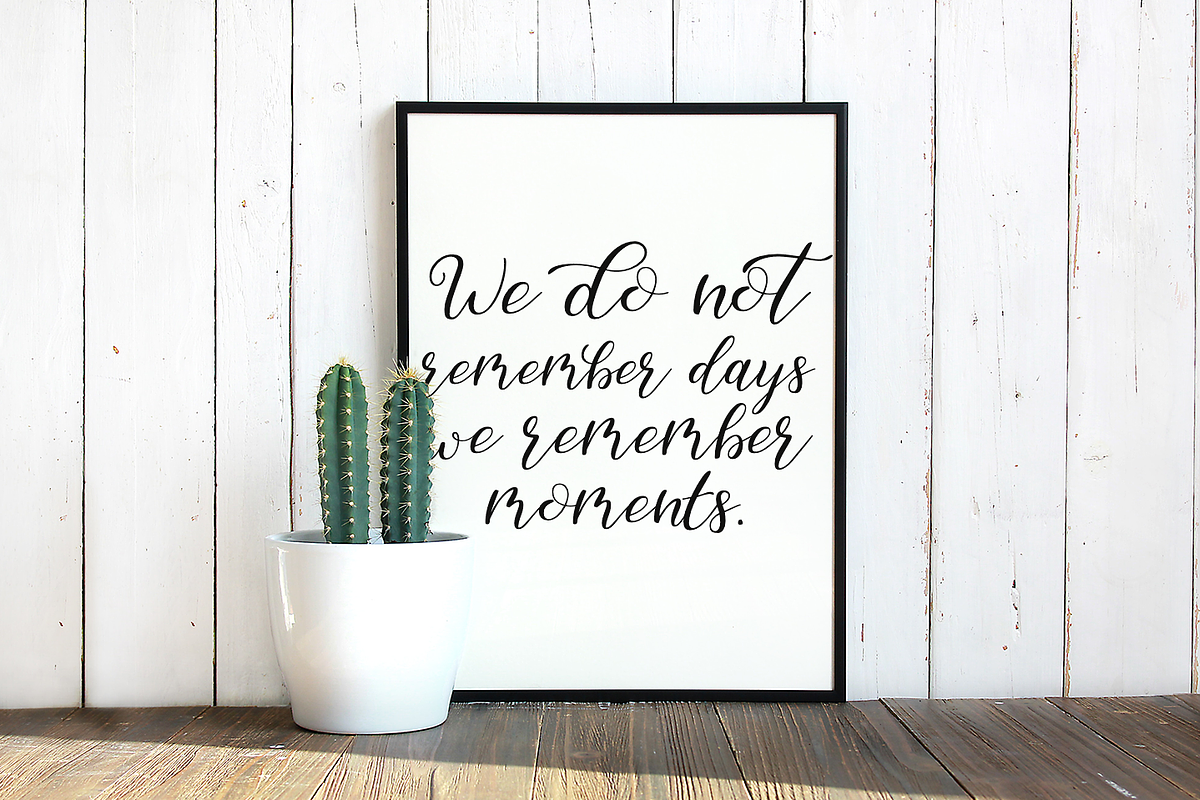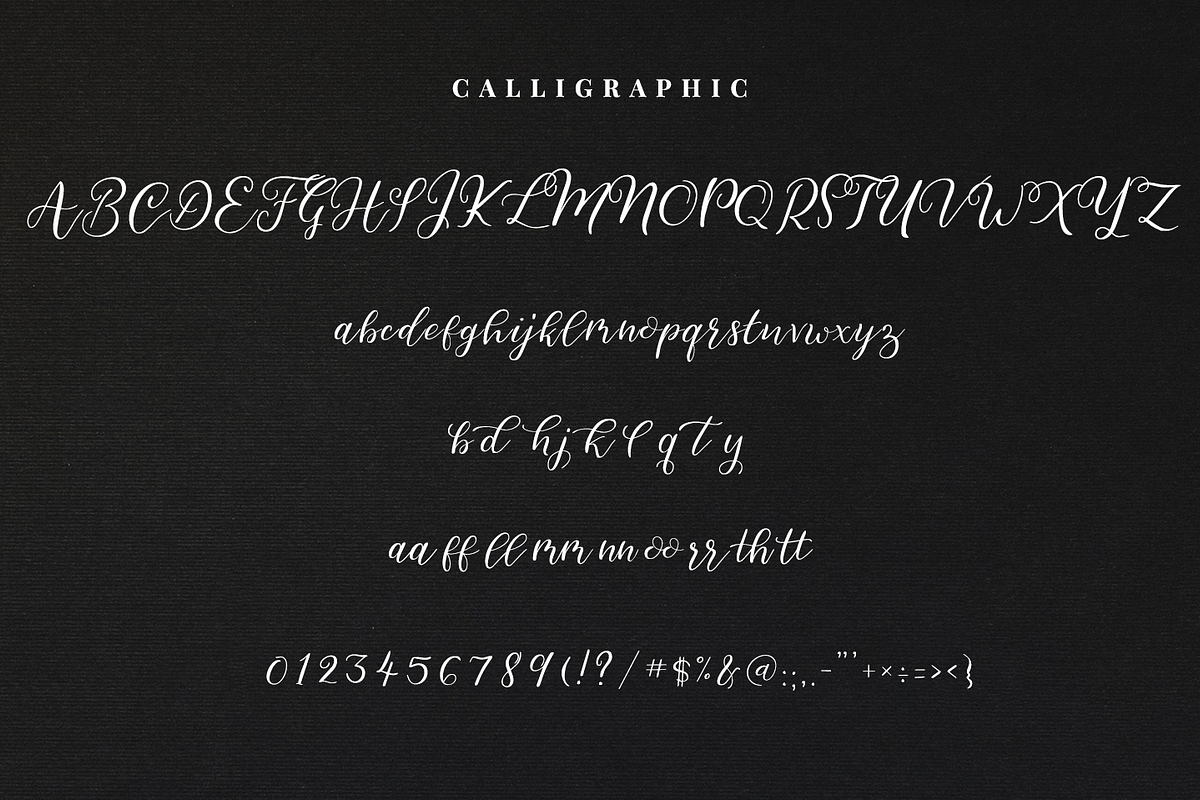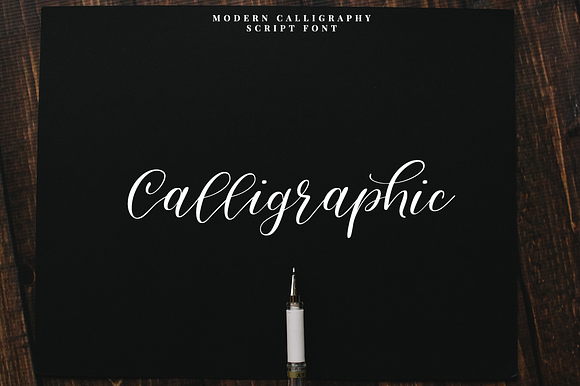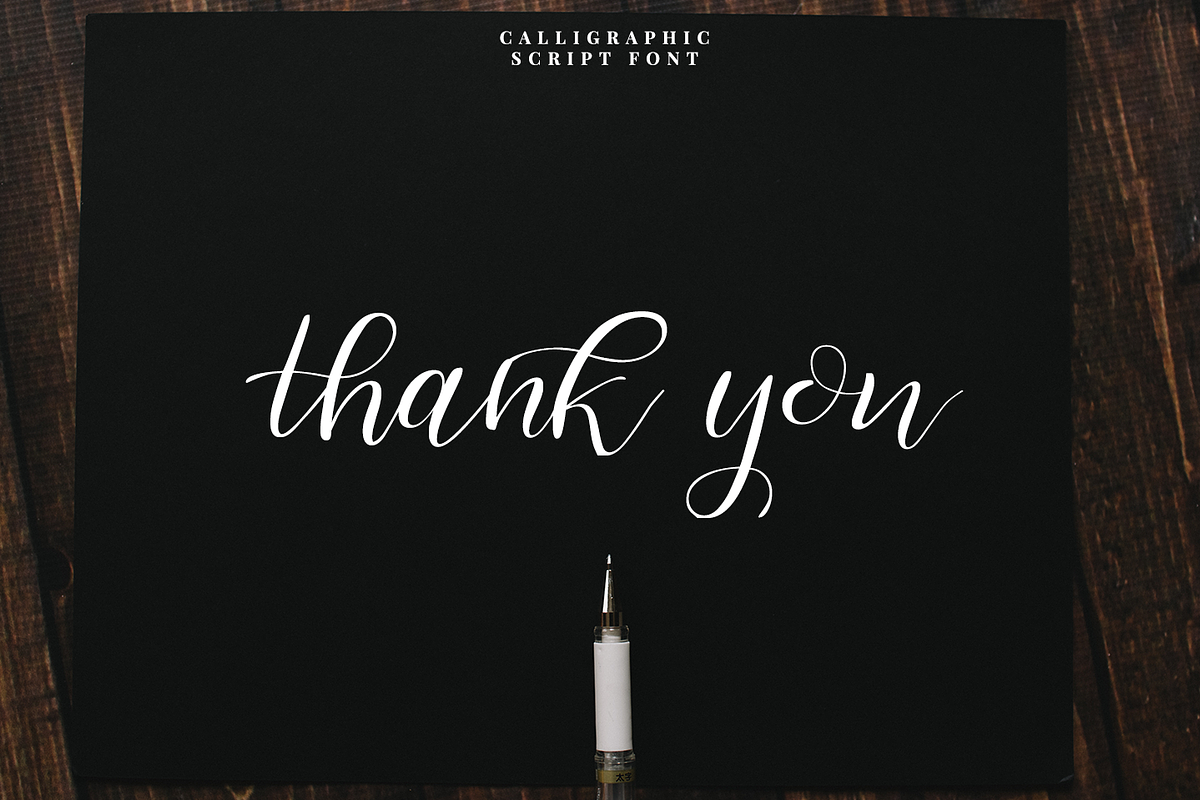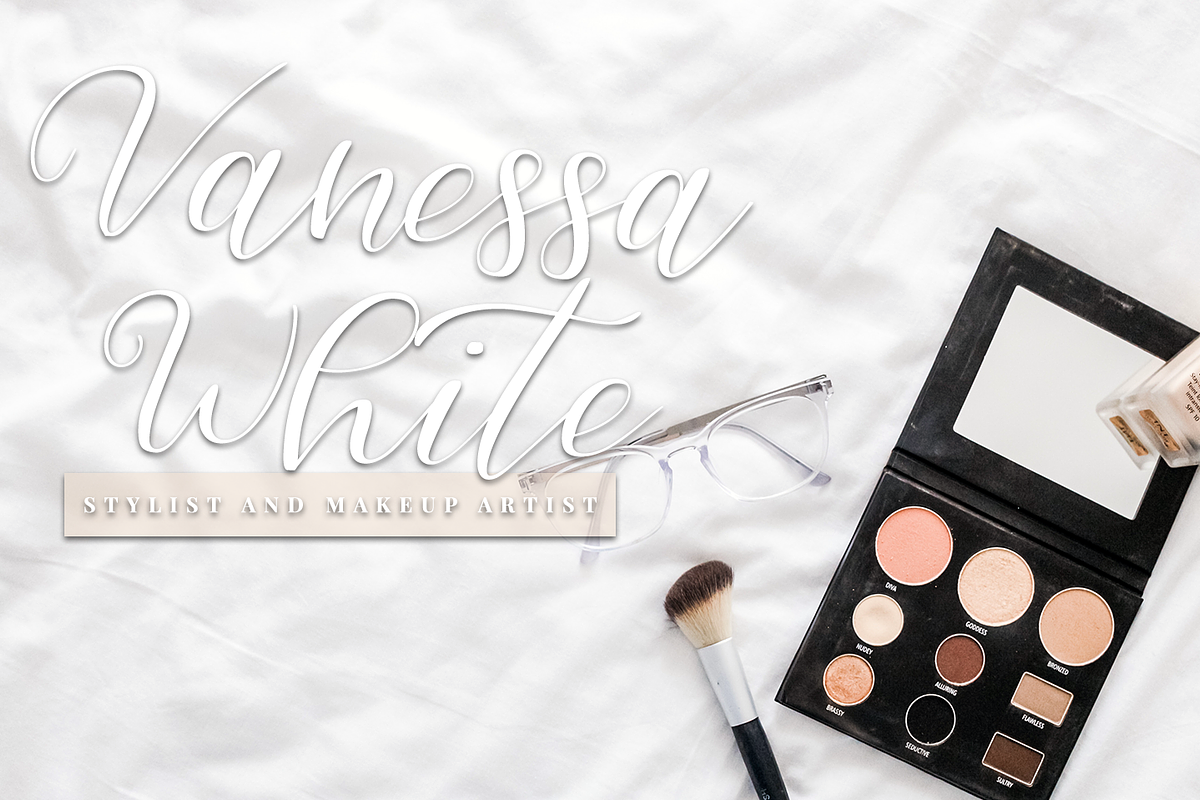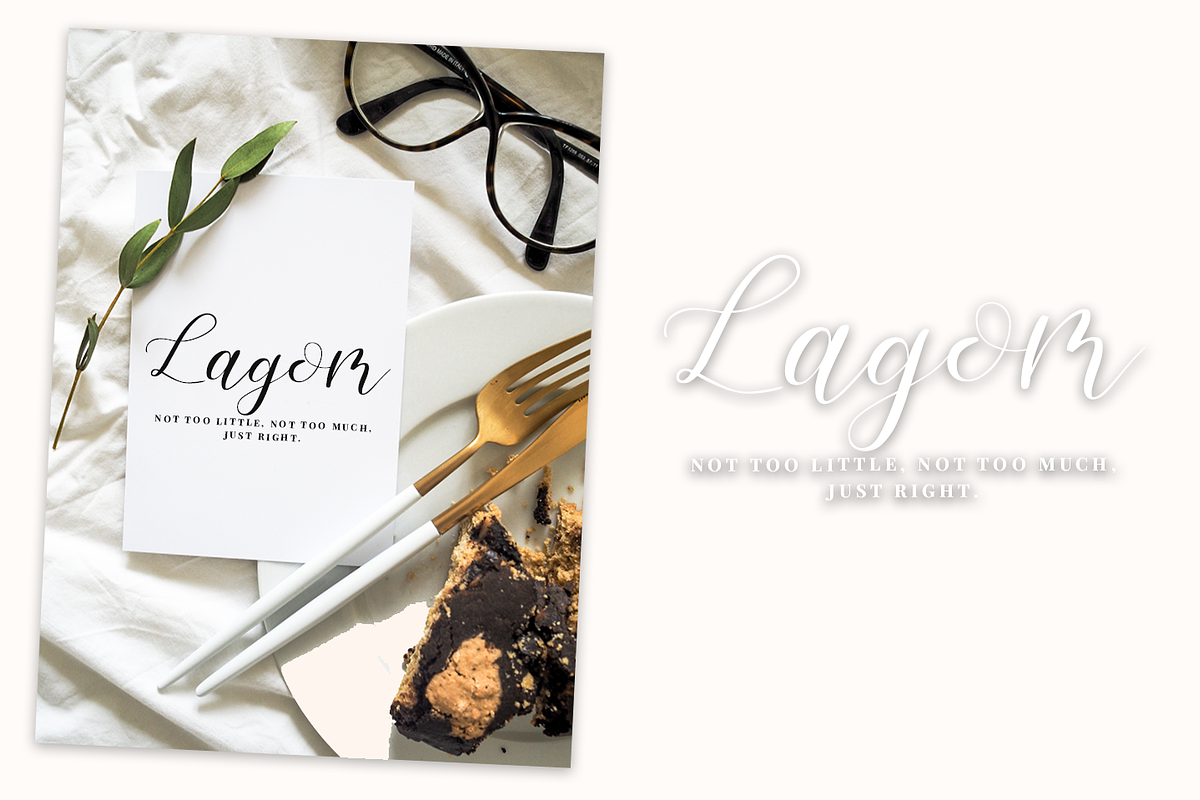
Calligraphic/Modern calligraphy font
Calligraphic - a new fresh handmade calligraphy font.
Very suitable for greeting cards, branding materials, business cards, quotes, posters, and more!This font are perfect for wedding postcard. Or you can create perfect and unique design of your logo, blog, stationery, marketing, magazines and more :)
Ligatures , Alternates